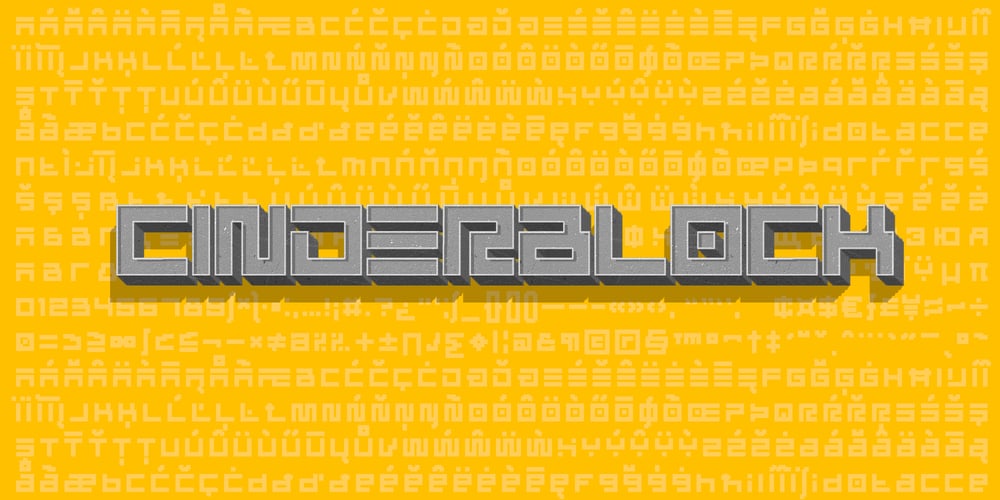
Cinderblock Font Family was designed by Burim Loshaj and published by Loshaj Foundry. Cinderblock contains 1 styles and family package options. The font is intended to be used as a header or headline font. Most of the characters are based on the same rectangle and therefore contain the same width which displays symmetry. The font contains 300+ glyphs which includes uppercase letters, lowercase alternates, numbers, symbols, accented characters for multiple language support.